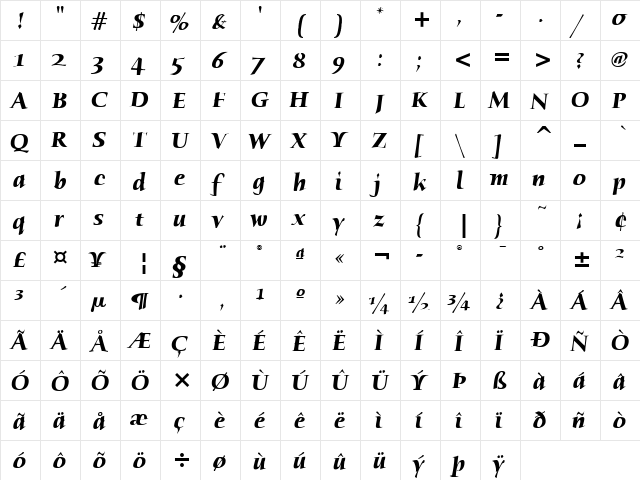
Humana Serif ITC Bold Italic Font Preview
Design Context for Humana Serif ITC Typeface
Humana Serif ITC brings classic typographic sensibility to the table — its serifs and measured letterforms reflect centuries of print heritage. Its italic angle brings a sense of urgency and motion to the letterforms. The heavy weight commands attention and anchors typographic hierarchies.
Pro Tip: Use Humana Serif ITC for editorial body copy and considered headline work. Pair with a neutral sans for UI elements or captions to create a classic hierarchy.